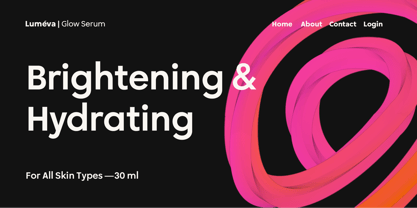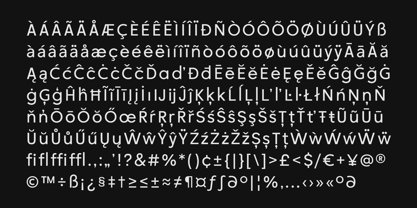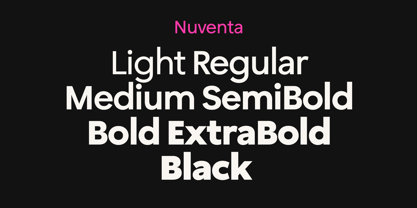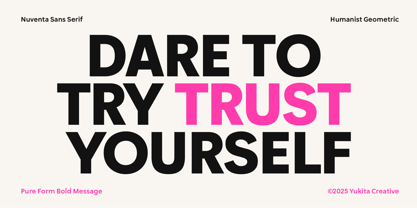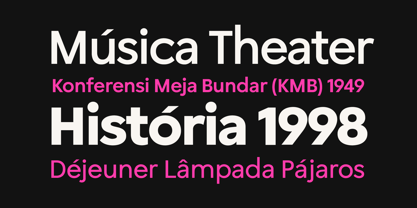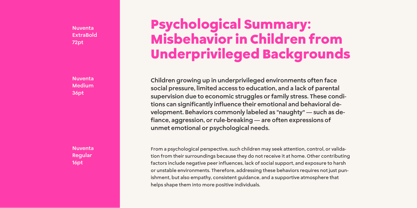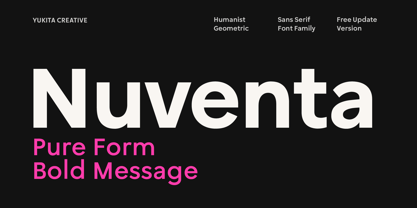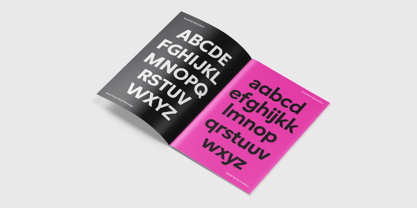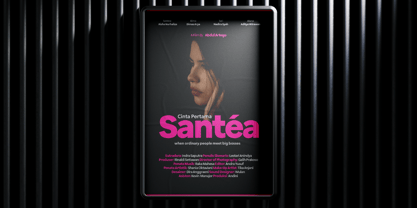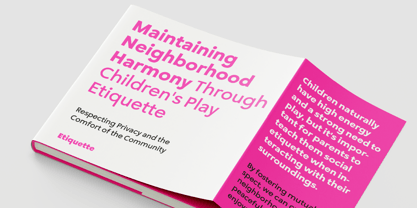
Nuventa
Nuventa is a clean and modern humanist geometric sans serif font designed for maximum readability and versatility. With its smooth letterforms and balanced proportions, Nuventa delivers strong visual clarity across both print and digital media.
Perfect for editorial layouts, branding, advertising, websites, apps, and user interfaces, Nuventa offers a professional look that remains approachable and functional. It includes 7 weights from Light to Black, full multilingual support, uppercase and lowercase characters, numerals, punctuation, and symbols.
Whether you're designing headlines, presentations, or brand identities, Nuventa is the ideal font choice to make your message stand out with bold simplicity.
Features:
• 7 Font Weights: Light, Regular, Medium, SemiBold, Bold, ExtraBold, Black
• Multilingual Support
• Uppercase & Lowercase
• Full Set of Punctuation & Symbols